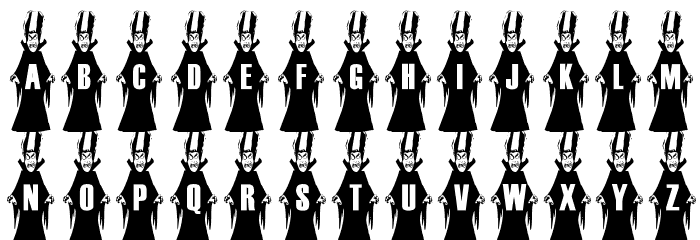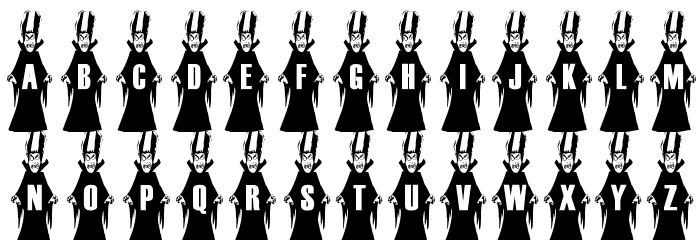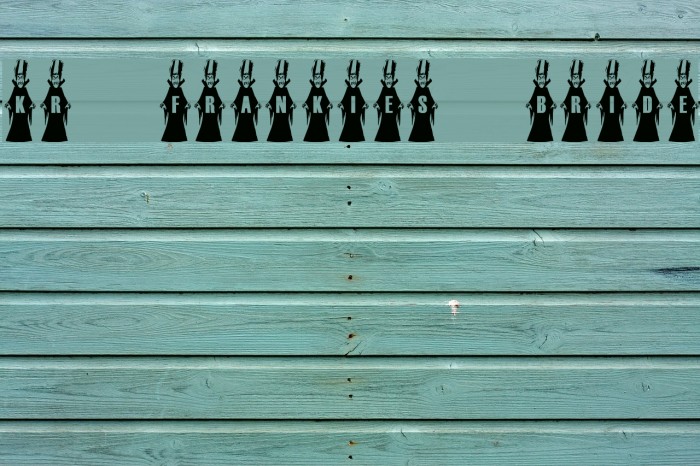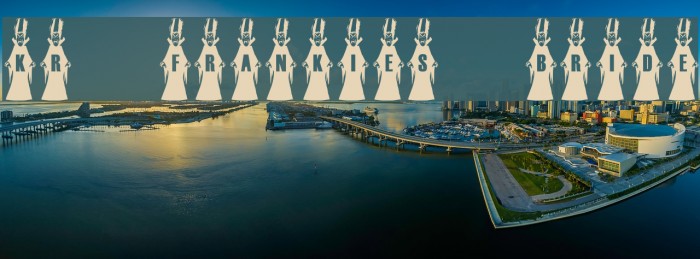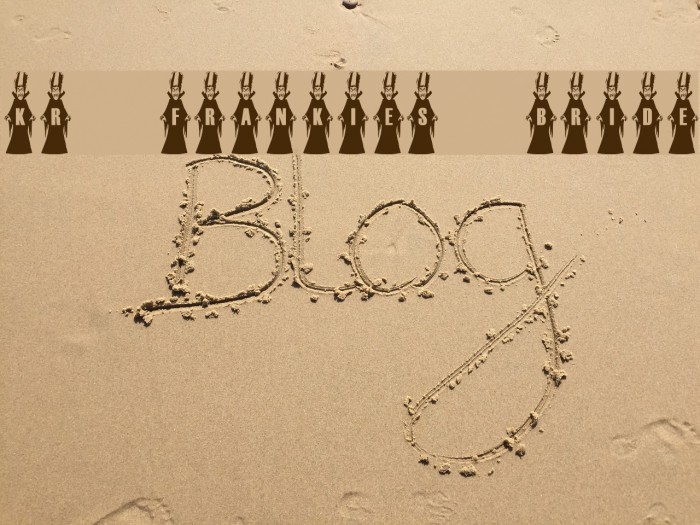
KR Frankie's Bride Font
This font features a unique and playful design, incorporating a character reminiscent of a classic monster theme. Each letter is embedded within the silhouette of a figure, adding a whimsical and thematic touch. The characters are bold and easily distinguishable, making them suitable for creative and themed projects. The font's style is highly decorative, with a strong visual impact due to the integration of the character design. This makes it ideal for Halloween-themed events, posters, or any project requiring a fun and spooky aesthetic.
A playful, monster-themed decorative font with bold characters.
- Proposed Projects: Ideal for Halloween events, themed posters, party invitations, and creative design projects.
- Use Case: Headlines, Posters, Themed Events